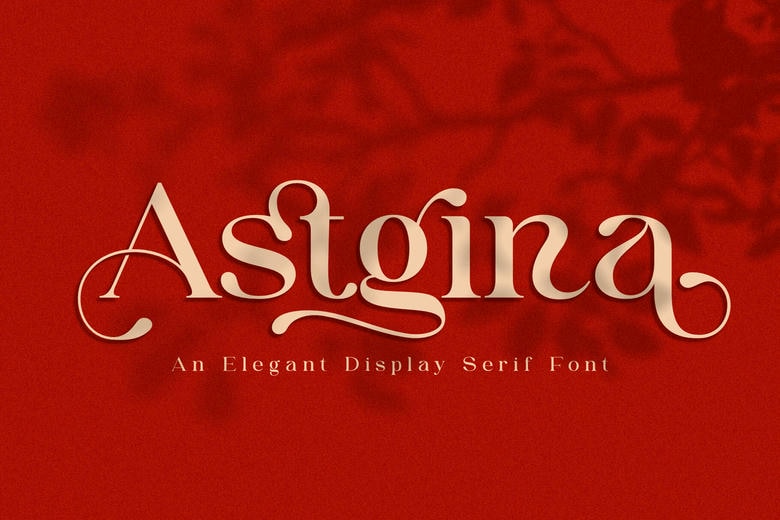
Astgina Font
Astgina is an elegant serif font which the fusion of the traditional style and the modern sublime is easily achieved. Its carefully designed type, with subtle decoration of details, is filled with eternal grace. Suitable to use in projects that would require a sophisticated and multifunctional typeface, Astgina would introduce a touch of exquisite elegance and refined style to your designs.
Astgina Serif Font